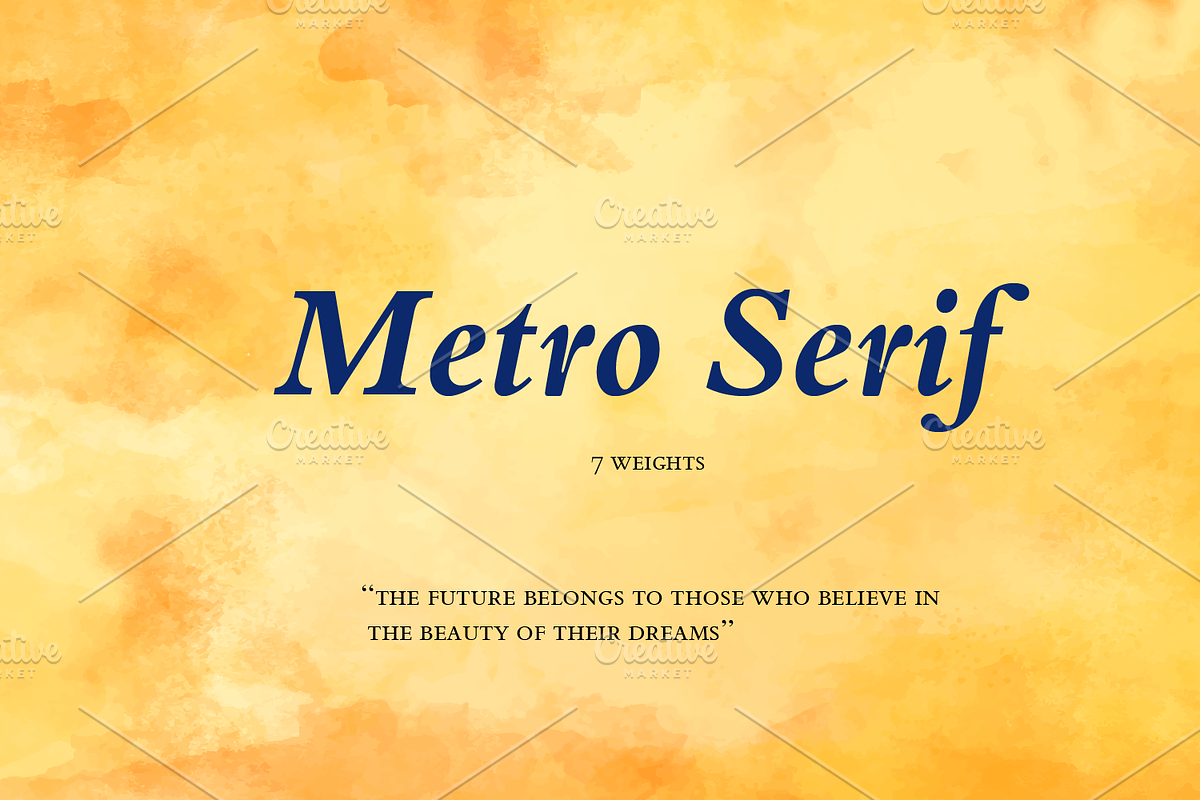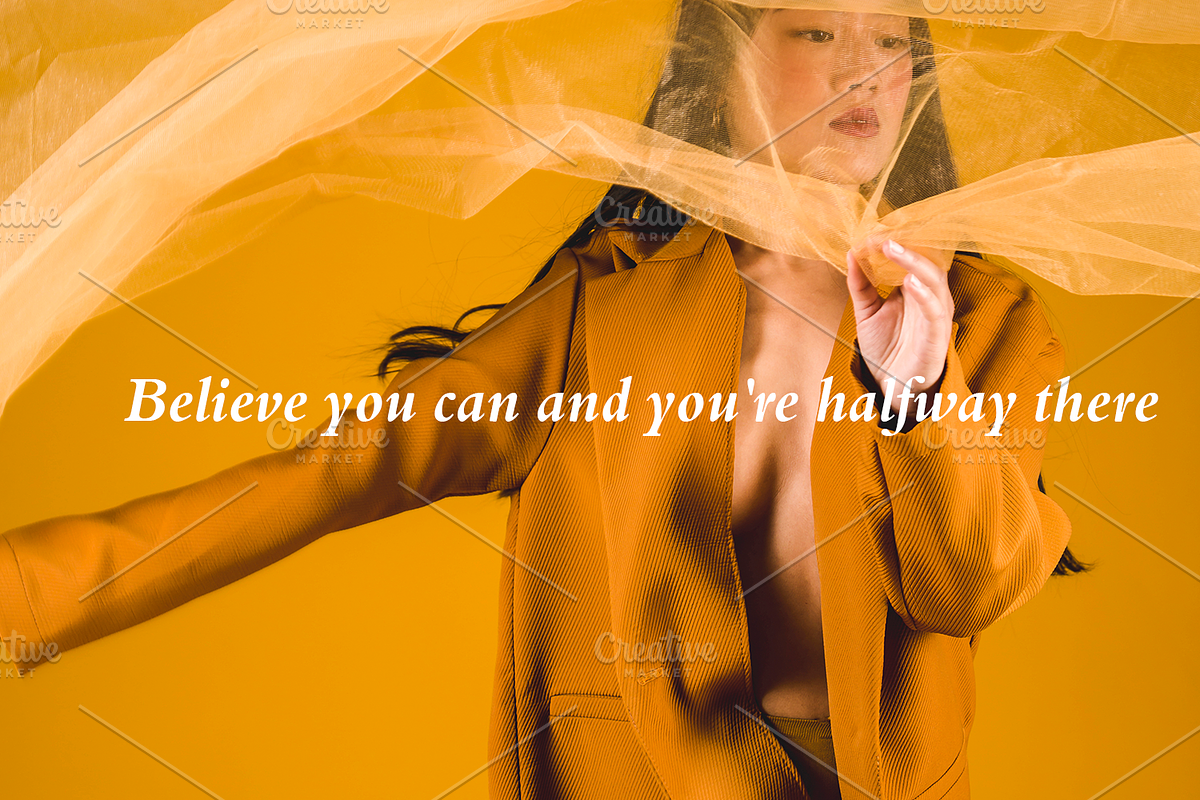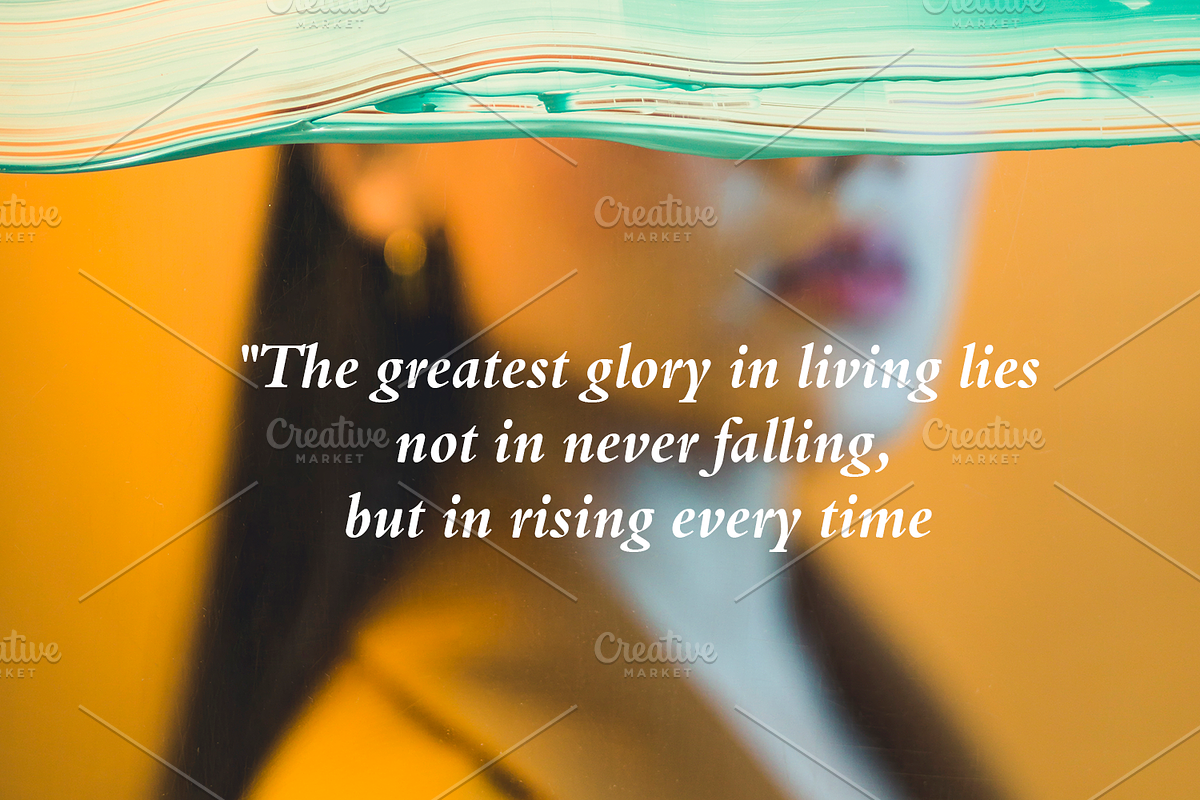
metro serf combines elegance with modern precision, making it a perfect choice for both digital and print designs. Its clean lines and balanced letterforms give it a timeless quality, ideal for conveying clarity and professionalism. Whether used for branding or editorial projects, it brings a sense of refinement and subtle sophistication to any text, blending classical inspiration with contemporary flair.